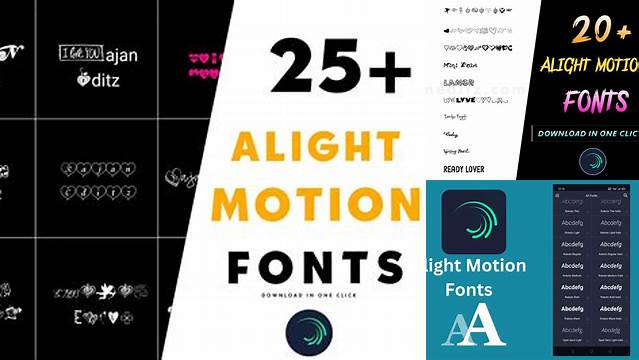
Stunning Fonts For Alight Motion: Preset Guide
Hey there, video editing enthusiasts! Ever wondered how to spice up your Alight Motion projects with some seriously cool fonts? Well, you're in the right place! We're diving headfirst into the world of fonts alight motion preset, exploring everything from where to find them to how to install them, and even some creative ways to use them. Get ready to transform your videos from bland to bold with the power of typography. Let's get started!
H2: Understanding Fonts in Alight Motion: A Beginner's Guide
Alright, first things first, let's get on the same page about what fonts are and how they work in Alight Motion. Essentially, fonts alight motion preset are pre-designed typefaces that you can use to add text to your videos. Think of them as different styles of writing, ranging from elegant scripts to bold and modern sans-serifs. They're the secret sauce for making your text visually appealing and conveying the right message to your audience. The beauty of Alight Motion is that it supports a wide variety of fonts, giving you endless creative possibilities. When you start a new project, Alight Motion typically comes with a selection of default fonts. These are great for basic needs, but trust me, the real fun begins when you start adding your own. This is where fonts alight motion preset come into play. A preset, in this context, often refers to a pre-configured setting that includes a specific font, size, color, and sometimes even animation effects. Using these presets can save you tons of time and effort. It's as simple as selecting a preset and typing in your text. No more manually adjusting font styles, sizes, and colors every time. With fonts alight motion preset, you can maintain consistency across your projects, create stunning text animations, and quickly apply unique fonts to your videos. Consider them your shortcut to professional-looking text effects. Alight Motion allows you to either import custom fonts or use the built-in ones. Each option offers its own advantages. The built-in fonts are readily available and easy to use, while custom fonts provide more creative freedom. The process of adding custom fonts alight motion preset usually involves downloading the font files (usually in .ttf or .otf format) and importing them into Alight Motion. This can typically be done from within the app's font selection menu. This added flexibility allows you to personalize your videos, reflect your brand's identity, and create a unique visual style that sets you apart from the crowd. Whether you're making a simple intro, a dynamic text animation, or a full-fledged video project, the right fonts alight motion preset can make all the difference.
H2: Utilizing Presets to Simplify Font Application
Okay, so you've got your fonts alight motion preset installed, now what? Time to dive into the world of presets and see how they can make your life easier! Presets, in the context of Alight Motion, are pre-designed settings that include the font style, size, color, and often even animation effects. Think of them as templates for text that you can quickly apply to your videos. This saves you the time and effort of manually adjusting all the settings every time you add text. Alight Motion provides a number of built-in presets, and you can also create your own custom presets. This makes it easy to maintain a consistent style throughout your project. To use a preset, add a text layer to your project, select the preset from the available options, and then simply type in your text. All the font settings, including the animation, will be automatically applied. It's like magic! Another benefit of using fonts alight motion preset is that they promote consistency across your projects. If you have a specific font and style that you use for your brand, you can save it as a preset and easily apply it to all your videos. This ensures that your brand identity is consistent across all your content. If you want to take your text effects to the next level, you can even create your own custom presets. This allows you to save your favorite font styles, colors, and animation effects for future use. You can also share your custom presets with others. This allows for collaboration and easy sharing of resources among creators. This can be a great way to save time, especially if you're working on multiple projects or collaborating with others. To create a custom preset, first, design your text effect using your desired font, size, color, and animation. Once you're happy with the result, save it as a preset. When you start a new project, load your saved custom preset and apply it to any text. This way, you don't have to repeat the same steps every time. This feature greatly increases the speed and efficiency of your workflow. Using fonts alight motion preset is all about efficiency and saving time. Mastering this technique will allow you to focus on your creative vision, rather than getting bogged down in the technical aspects of text design.
H2: Creating Your Own Custom Font Presets
Alright, let's get into how to create your own awesome fonts alight motion preset! After all, sometimes the built-in options just don't cut it, right? Creating your own presets allows you to fully customize your text and save time in the long run. The first step is, of course, to choose your font. Select the font you want to use from the font selection menu. Then, adjust the size, color, and any other formatting options to your liking. You can experiment with different sizes to see what looks best on your project. Choose colors that complement your video's overall aesthetic. Once you've got the font, size, and color sorted, it's time to add some animation. Alight Motion offers a variety of animation effects, such as fade-in, slide-in, and many more. Experiment with different effects to find what works best for your text. Adjust the animation speed and duration to match the rhythm of your video. Remember, creating the perfect animation is all about experimentation. Once you're satisfied with the look and feel of your text, it's time to save it as a preset. In the text editing panel, there should be an option to save the current text settings as a preset. Give your preset a descriptive name so you can easily identify it later. You might name your preset something like